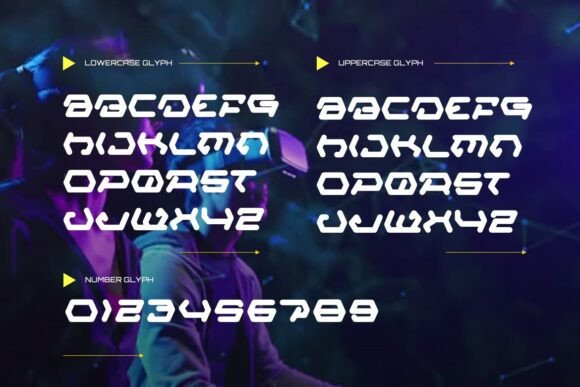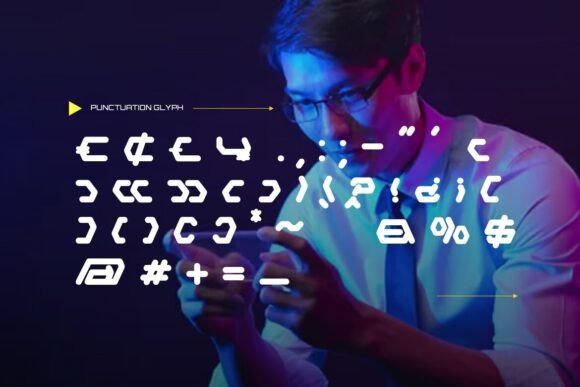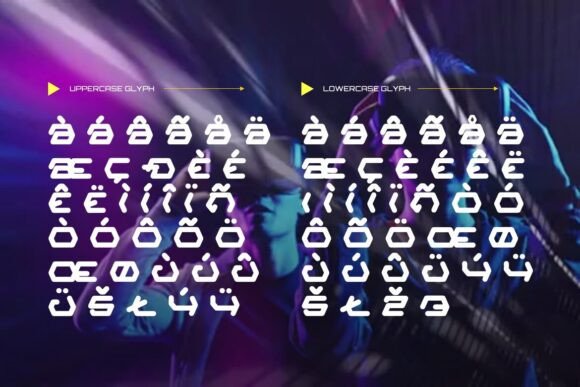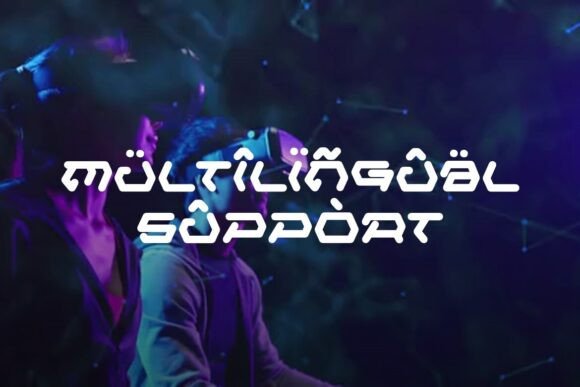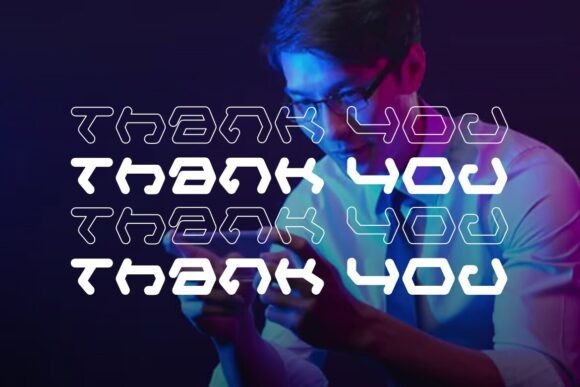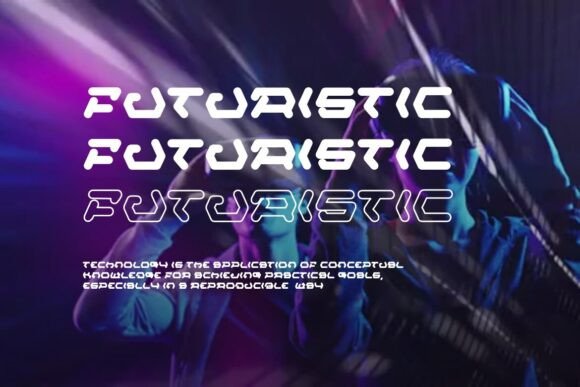
Introduction to Priston Font
Have you ever stared at a blank canvas, your mind racing with ideas, but your font choices limited by the constraints of your current design resource? I know I have. The moment of truth arrives when you need that perfect font to bring your creative project to life. It’s a feeling of excitement and anticipation, knowing that the right font can make all the difference.
That’s why I’m thrilled to introduce you to the Priston Font, a game-changing design resource that’s about to revolutionize the way you approach your next creative project. With its sleek, modern design and high-quality aesthetic, Priston Font is the perfect solution for designers looking to elevate their work to the next level.
Not only is the Priston Font available for free download, but its transparent background and versatility make it an ideal choice for a wide range of design projects. Whether you’re a seasoned pro or just starting out, the Priston Font is a valuable addition to your design arsenal, waiting to help you create something truly exceptional.
Key Features of Priston Font
- Unique, modern design with a clean and elegant aesthetic, perfect for branding, logos, and typography-based projects.
- Font family includes multiple styles and weights, allowing for versatility and customization in design projects.
- Designed to be a versatile design resource, Priston Font is suitable for a wide range of creative projects, from business cards to magazine layouts.
Honest Review: Priston Font
I recently had the chance to try out the Priston Font, and I must say, it’s been a game-changer for my design projects. The first thing I noticed was the beautiful, high-quality design that’s perfect for a creative project. The font’s clean lines and elegant style make it an excellent choice for anything from logos to marketing materials.
- ✨ High-quality design that’s perfect for a creative project
- ⚠️ Limited character set, which may not be suitable for complex texts
- ⚠️ Not suitable for use in small font sizes, as the details may get lost
Overall, I’m really impressed with the Priston Font. It’s a fantastic addition to any design toolkit, and I’d highly recommend it for any creative project. Just be mindful of its limitations, and you’ll be golden.
The Priston Font is ideal for various creative projects, including logos, branding materials, and marketing collateral. Its clean and modern design makes it perfect for digital and print media.